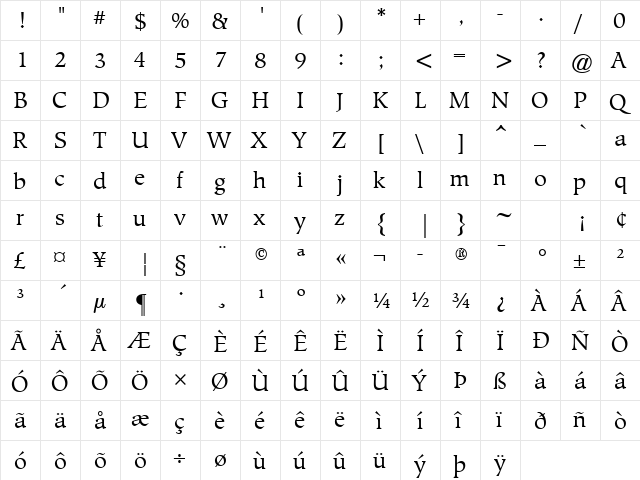
Hiroshige ATT Regular
Design Context for Hiroshige ATT Typeface
Hiroshige ATT is a composed and adaptable typeface that performs quietly and consistently across a wide range of design contexts.